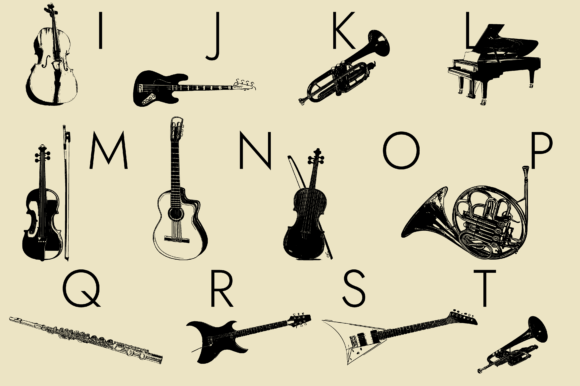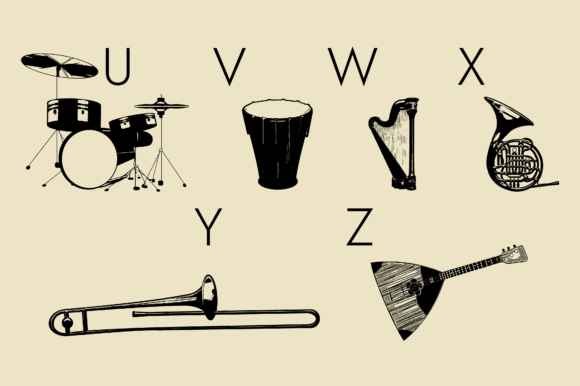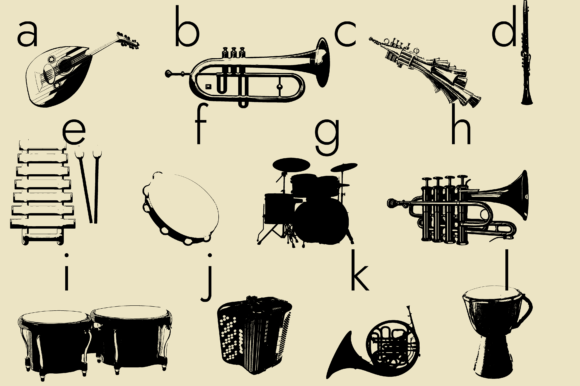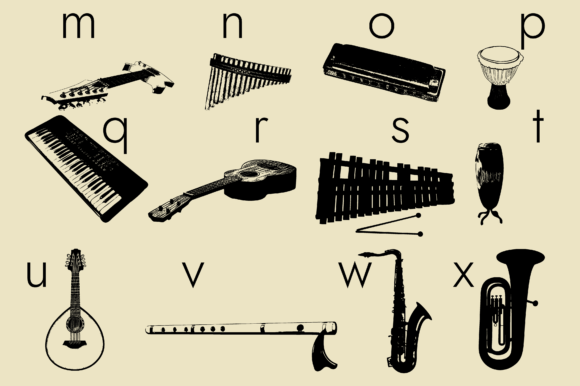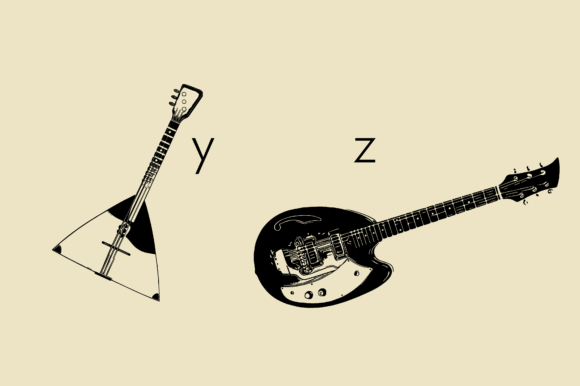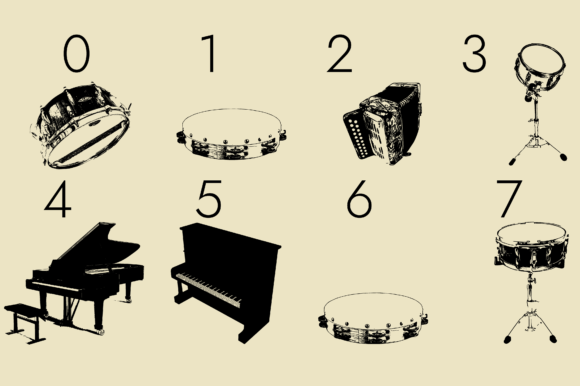
Introduction to Music Instruments Font
Music Instruments is a cute dingbats font designed to let you generate musical instrument clip arts in various ways.
Fall in love with its lovely musical accents, and use them to create artistic designs .
Key Features of Music Instruments Font